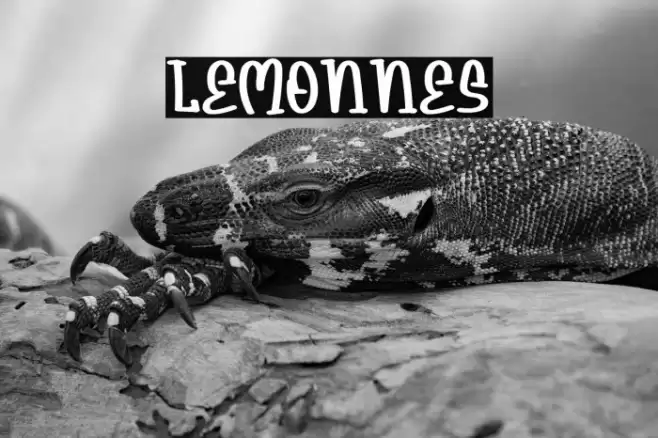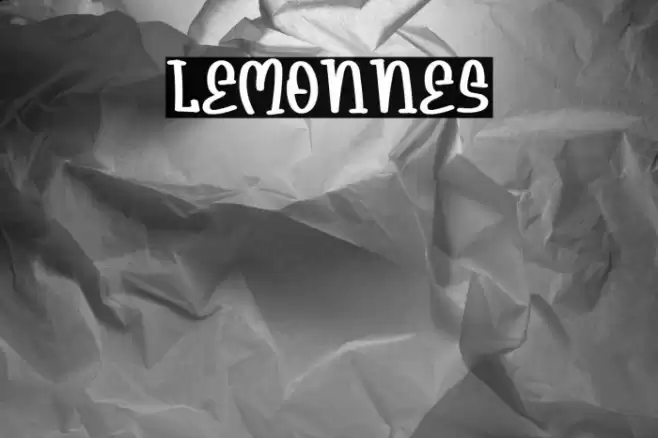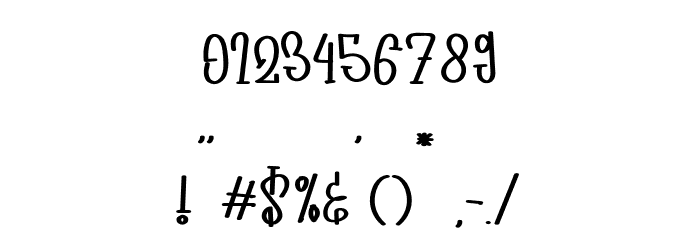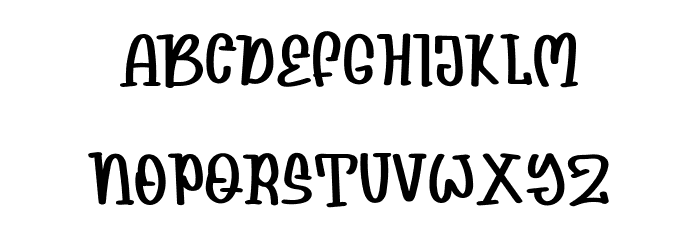
Lemonnes Font
Lemonnes Description
This font features a playful and whimsical design, characterized by its bold and rounded letterforms. The strokes are thick and consistent, giving it a strong presence on the page. The uppercase and lowercase letters maintain a uniform style, with slight variations that add to its charm. The numerals are equally bold, ensuring readability. Special characters are creatively designed, matching the overall playful aesthetic. This font is ideal for projects that require a fun and engaging look, such as children's books, posters, and branding for playful products.
A bold, playful font with rounded letterforms and a whimsical style from Cartoon fonts.
- Proposed Projects: Children's books, playful branding, posters, and creative invitations.
- Overall Style: Playful and whimsical